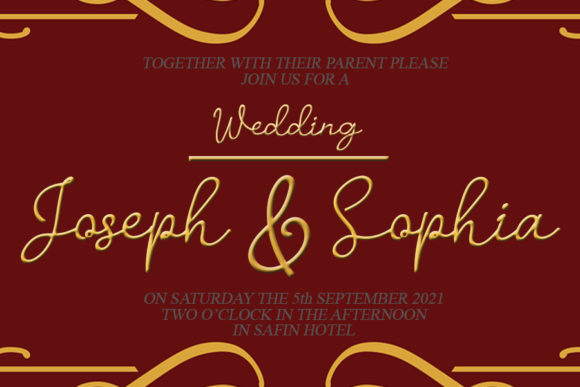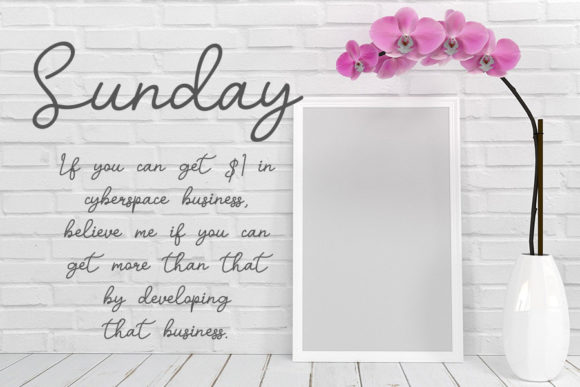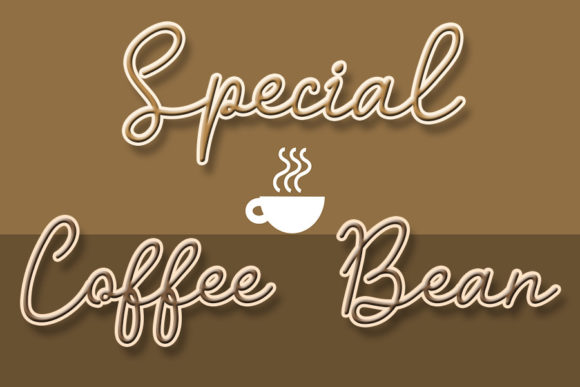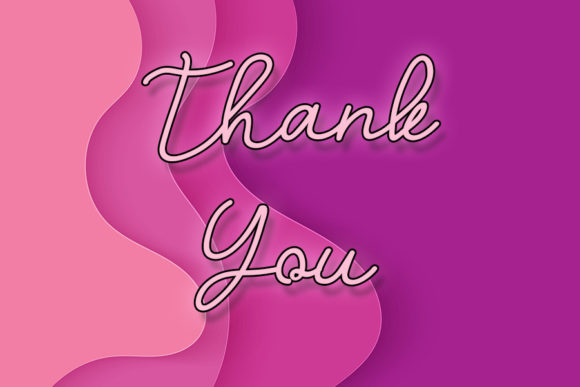
The Perfect Script Font for Your Masterpiece
Remember the moment when you stumbled upon the perfect font for your design project? It’s like finding a missing piece of a puzzle that brings everything together. For designers, discovering the right font can be a game-changer. It’s a chance to elevate your work from good to breathtaking.
Enter Beautiful is Relative Font – a stunning script font that’s perfect for adding a touch of elegance to your designs. Whether you’re creating wedding invitations, thank you cards, or business cards, this font is sure to make your work stand out. With its stylish and sophisticated look, Beautiful is Relative Font is a valuable addition to any designer’s toolkit.
As a designer, you know the importance of choosing the right font to convey your message and evoke the right emotions. Beautiful is Relative Font is an excellent choice for any project that requires a customized touch, and its versatility makes it a must-have for any designer looking to take their work to the next level.
Beautiful is Relative Font Key Features
- Font Family: Beautiful is Relative Font is a custom, hand-drawn font designed to evoke a sense of elegance and sophistication.
- Character Count: The font includes over 500 characters, including uppercase and lowercase letters, numbers, and special characters.
- Size: Beautiful is Relative Font is available in 6 font sizes, ranging from 8pt to 72pt, making it suitable for a wide range of applications.
- Resolution: The font is designed to work at resolutions up to 300 DPI (Dots Per Inch), ensuring crisp and clear rendering on various devices.
- Unique Characteristics: The font features a unique, hand-drawn style with subtle imperfections, giving it a distinctive and eye-catching appearance.
Beautiful is Relative Font Review
As a designer, I was excited to dive into the “Beautiful is Relative Font” and see what it had to offer. Here’s my honest take on this font.
- Unique aesthetic: The font has a distinct, artistic feel that sets it apart from more traditional fonts.
- Highly legible: Despite its quirky appearance, the font is surprisingly easy to read, even at smaller sizes.
- Works well for display text: The font’s bold lines and expressive curves make it perfect for headings and titles.
- Limited character set: The font’s character set is somewhat limited, which may not be suitable for longer blocks of text.
- Not ideal for body text: While the font is legible, it’s not the most comfortable to read in large quantities, making it less suitable for body text.
- May not be suitable for small sizes: The font’s bold lines can become fuzzy or difficult to read at very small sizes.
The “Beautiful is Relative Font” is a visually striking choice that’s perfect for adding a touch of personality to your design. While it may not be the most practical choice for every project, it’s definitely worth considering when you need something that stands out.
Here are some tips to help you get the most out of the Beautiful is Relative Font:
- Combine the Beautiful is Relative Font with other fonts to create a unique and interesting typography.
- Use the font to create headings and titles that stand out from the rest of the text.
The Beautiful is Relative Font is suitable for a wide range of designs, including:
- Editorials and articles.
- Marketing materials and advertisements.
- Branding and